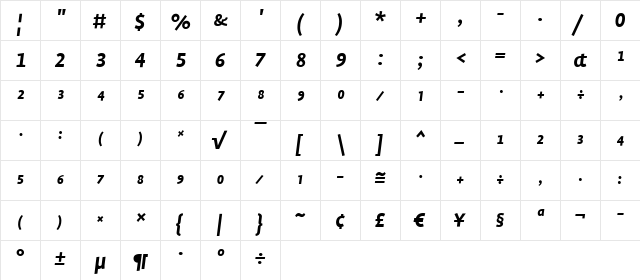
ProfileNO Bold Italic Font Preview
ProfileNO Bold Italic
ProfileNO Bold Italic Font Details
| Foundry | by Martin Wenzel, published by FontShop International for the FontFont library. Profile is a trademark of FSI, Fonts and Software GmbH,http://www.fontfont.de |
Design Context for ProfileNO Typeface
ProfileNO takes a measured approach to typography — its balanced proportions and neutral character make it a reliable workhorse for both digital and print work. The dynamic lean of this cut emphasises speed and emphasis in any layout. The heavy weight commands attention and anchors typographic hierarchies.